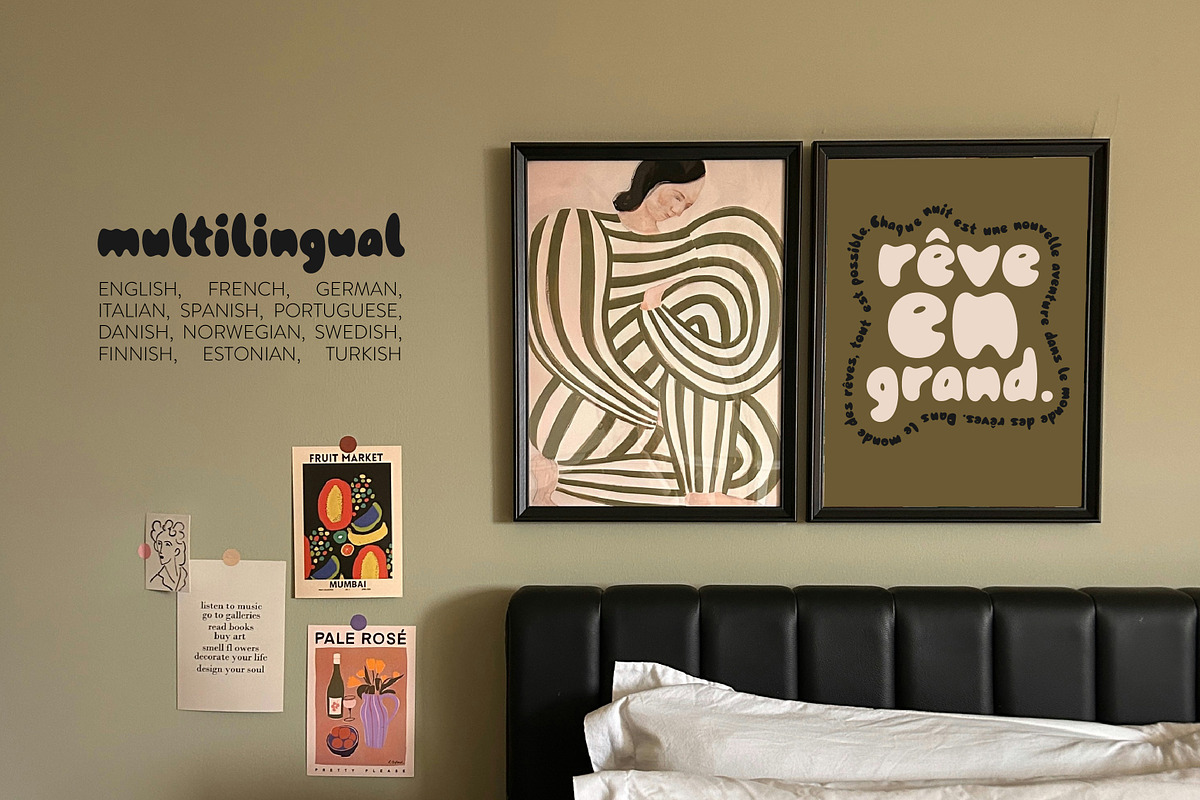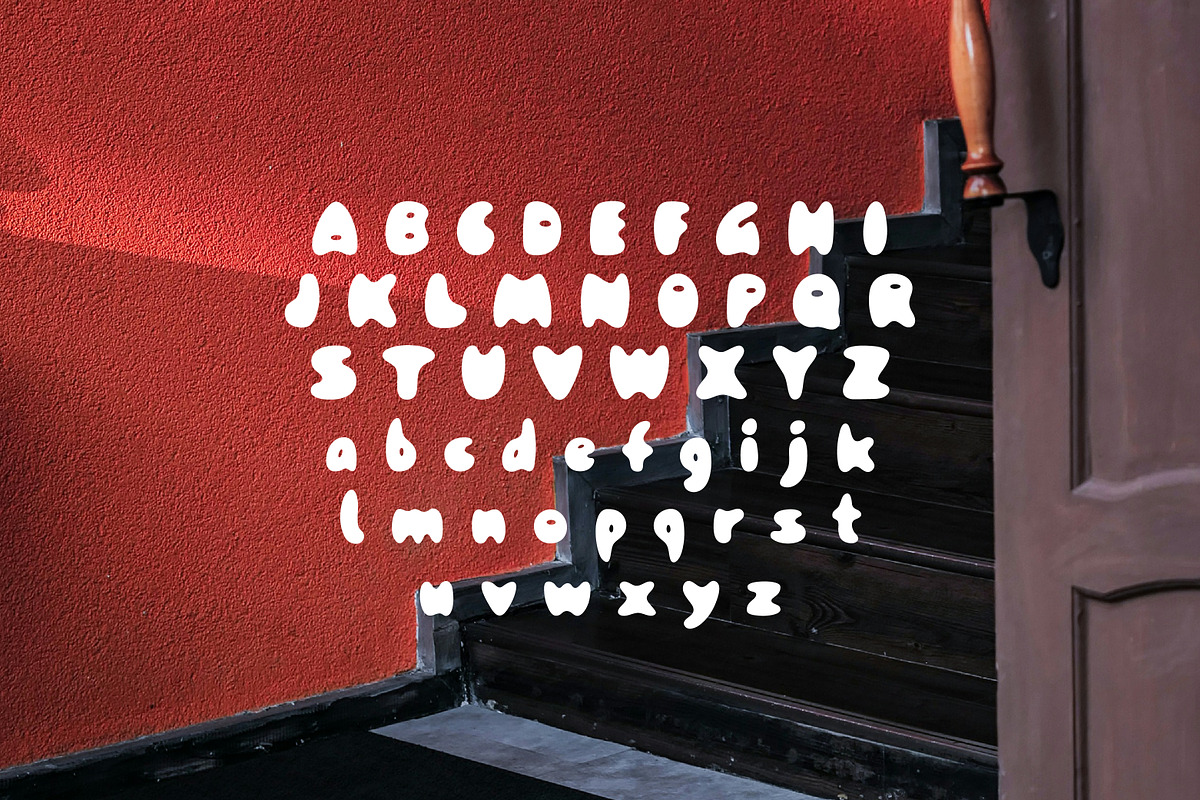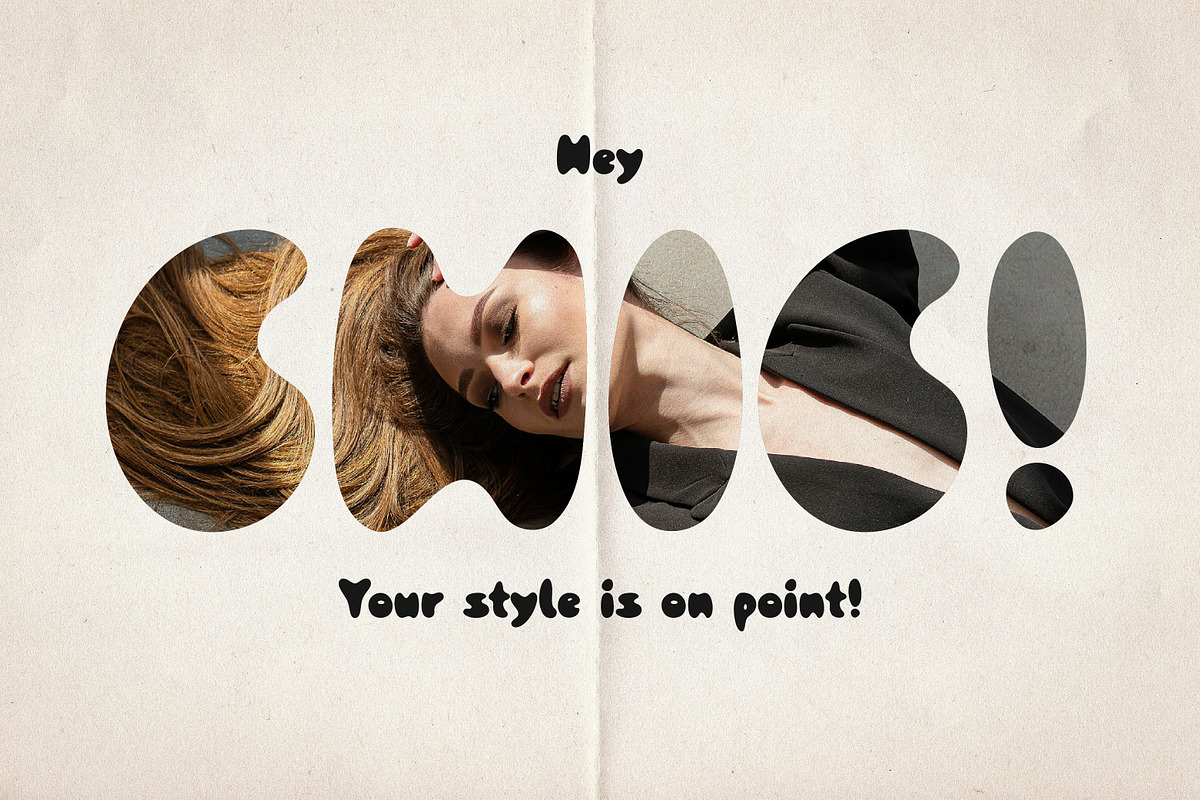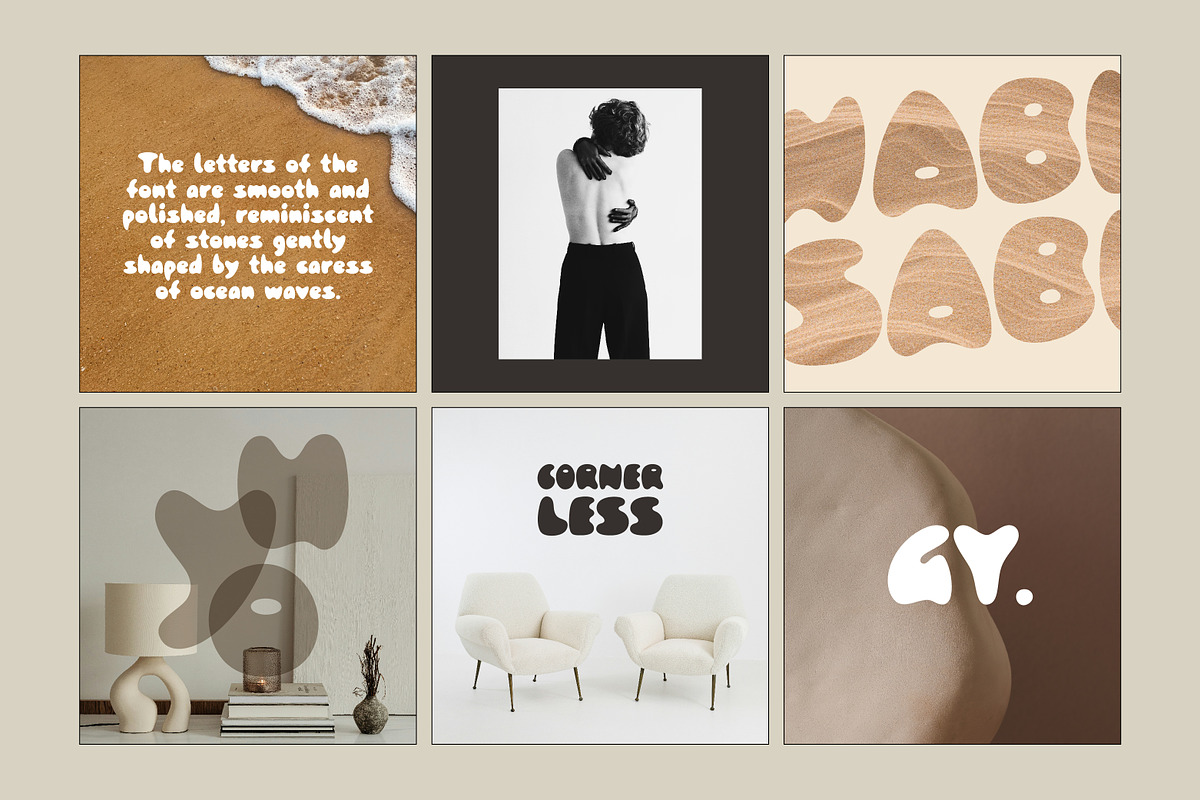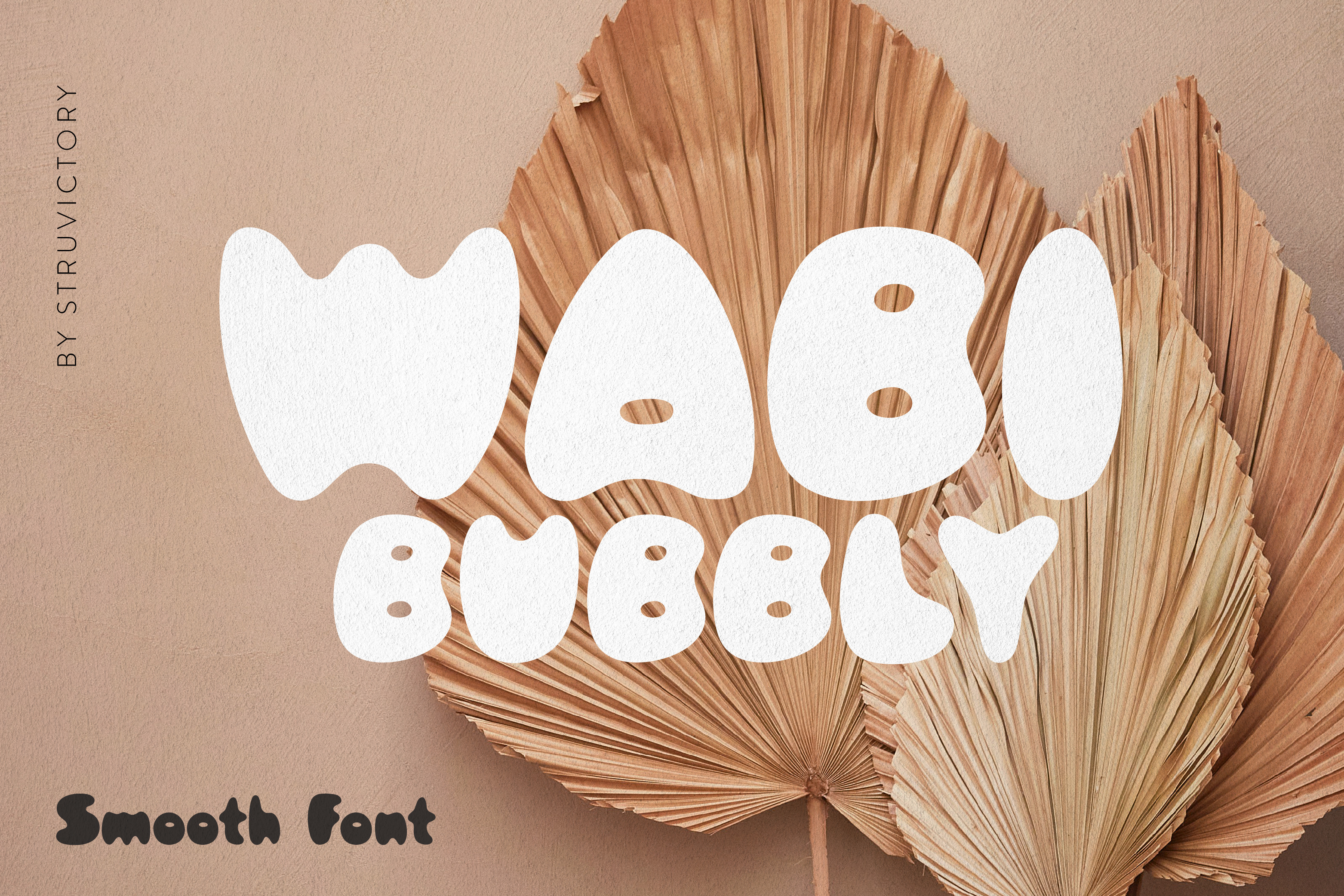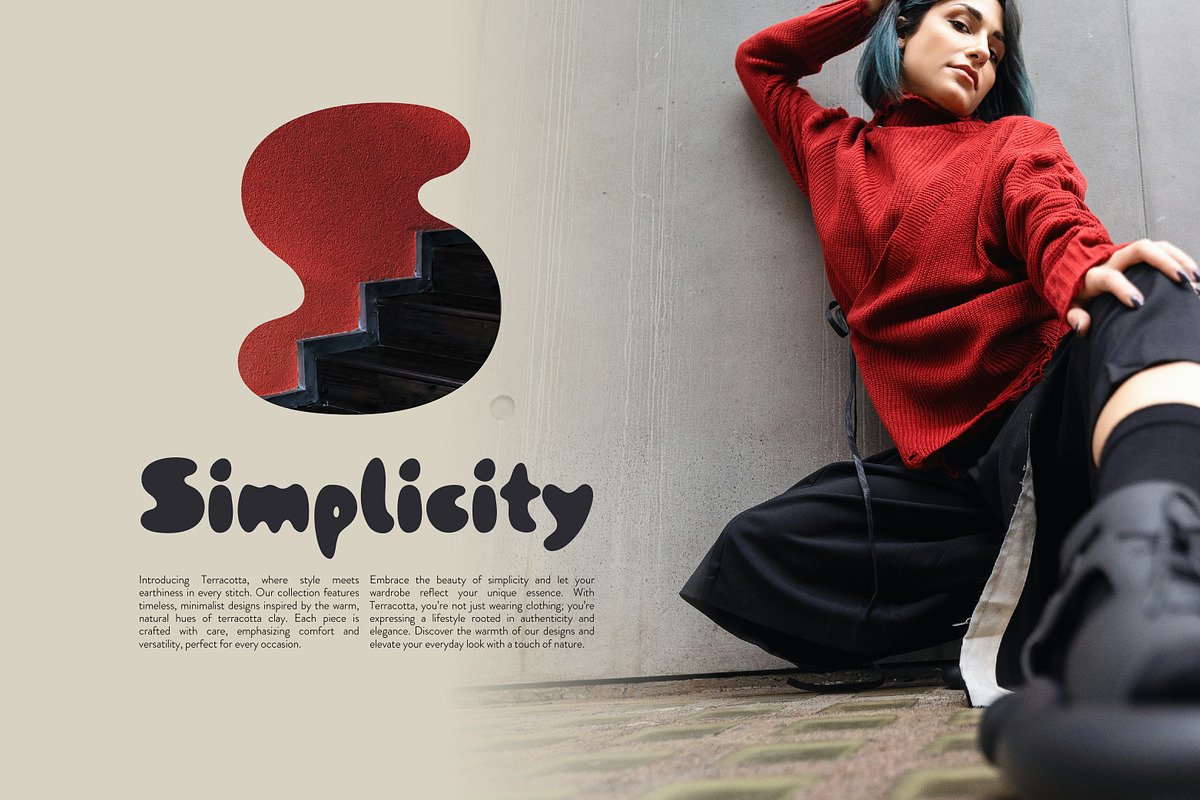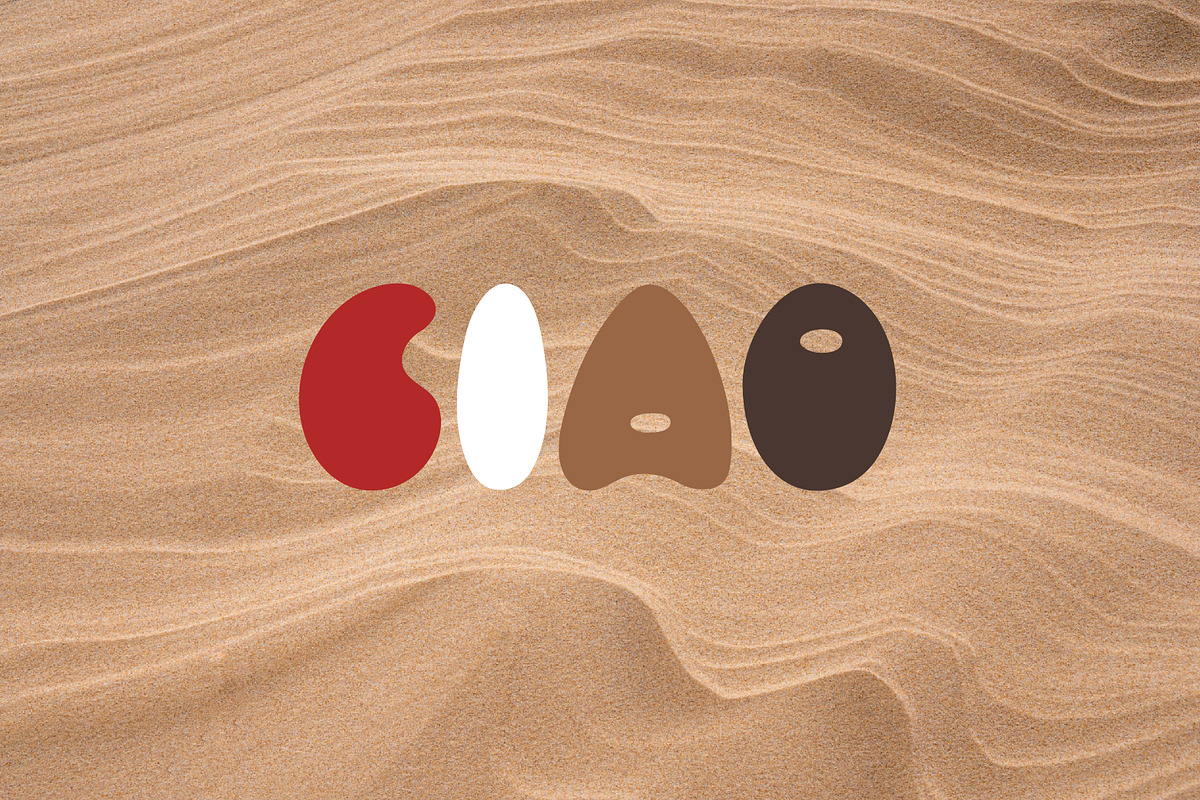
Wabi-Bubbly Minimal Smooth y2k Font
Introducing Wabi Bubbly, a charming rounded font that beautifully blends the essence of wabi-sabi with a playful Y2K aesthetic. Its soft, bubbly forms create an inviting and friendly vibe, perfect for modern designs that seek to combine minimalism with a touch of whimsy. Whether you’re crafting vibrant social media posts, designing trendy merchandise, or creating eye-catching branding, Wabi Bubbly adds a unique flair that captures attention and evokes nostalgia.
Wabi Bubbly supports the most popular latin-based languages, you can check the symbol you need by typing a couple of words in the font preview box.